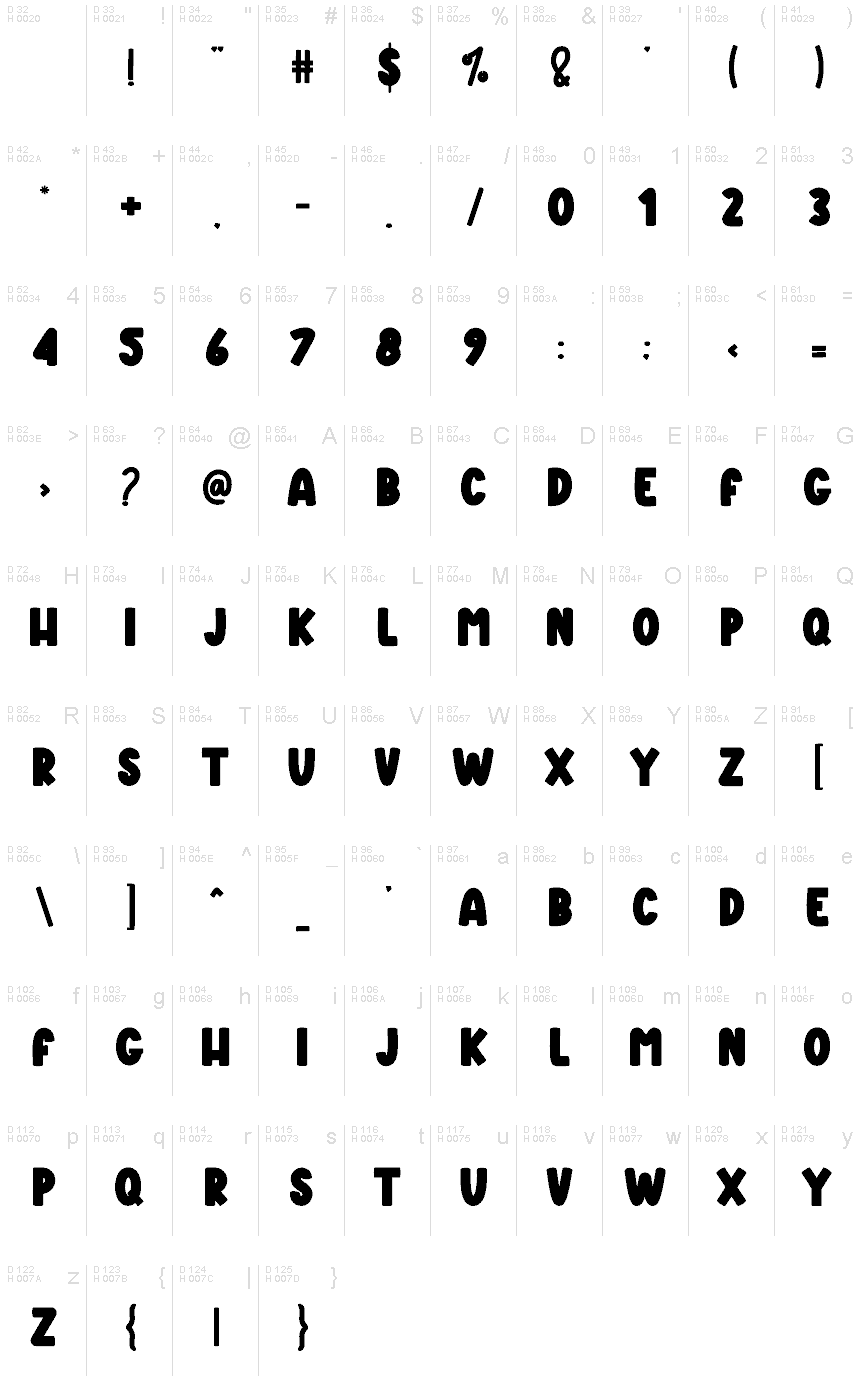
Magic Trick
Magic Trick font by Scratchones is a bold cartoon display typeface that injects excited vibes into every letter. With a strong retro aesthetic and rounded look, the font makes readers feel good and entertained whenever they see it. Its visual presence grabs attention instantly, making it ideal for branding projects and other modern applications.
Modern uses include book covers, poster designs, body care labels, packaging designs, banners, party invitations, video games interfaces design, apps UI/UX design among other digital or printed visual uses. The free font can also be used digitally in animated movies projects or billboard advertisements as well.